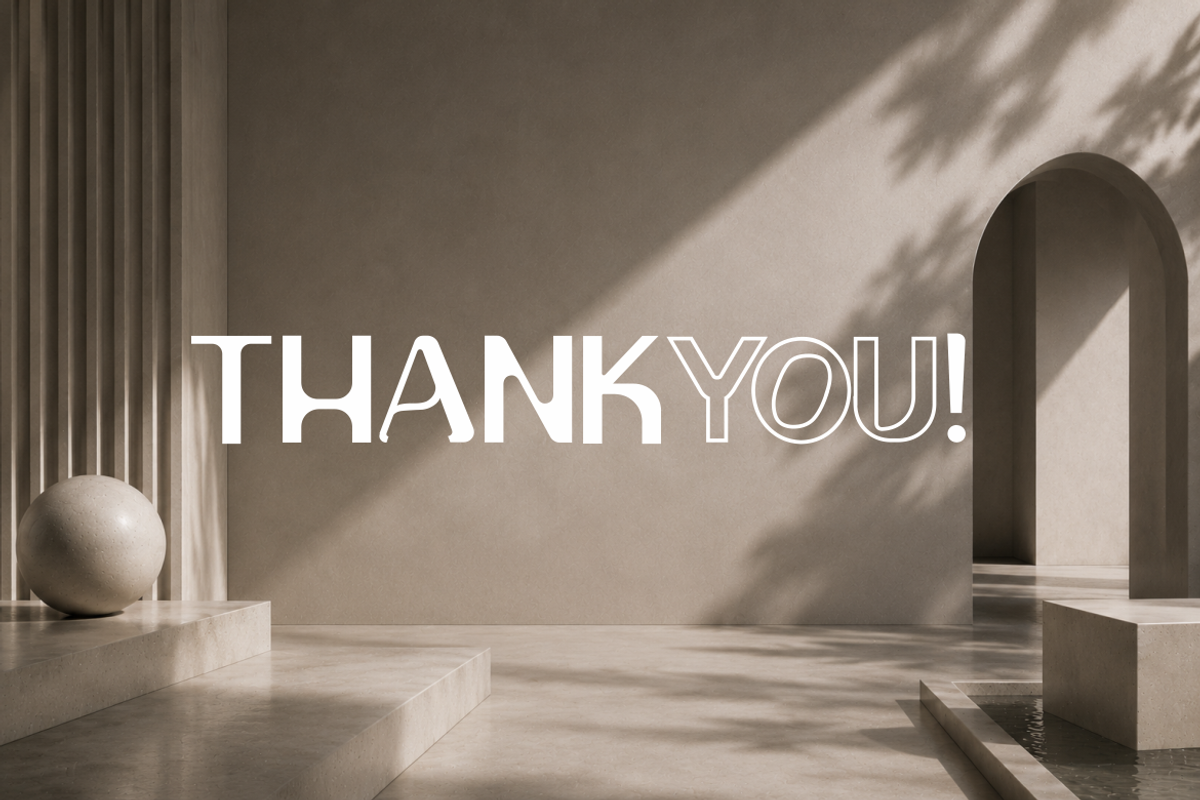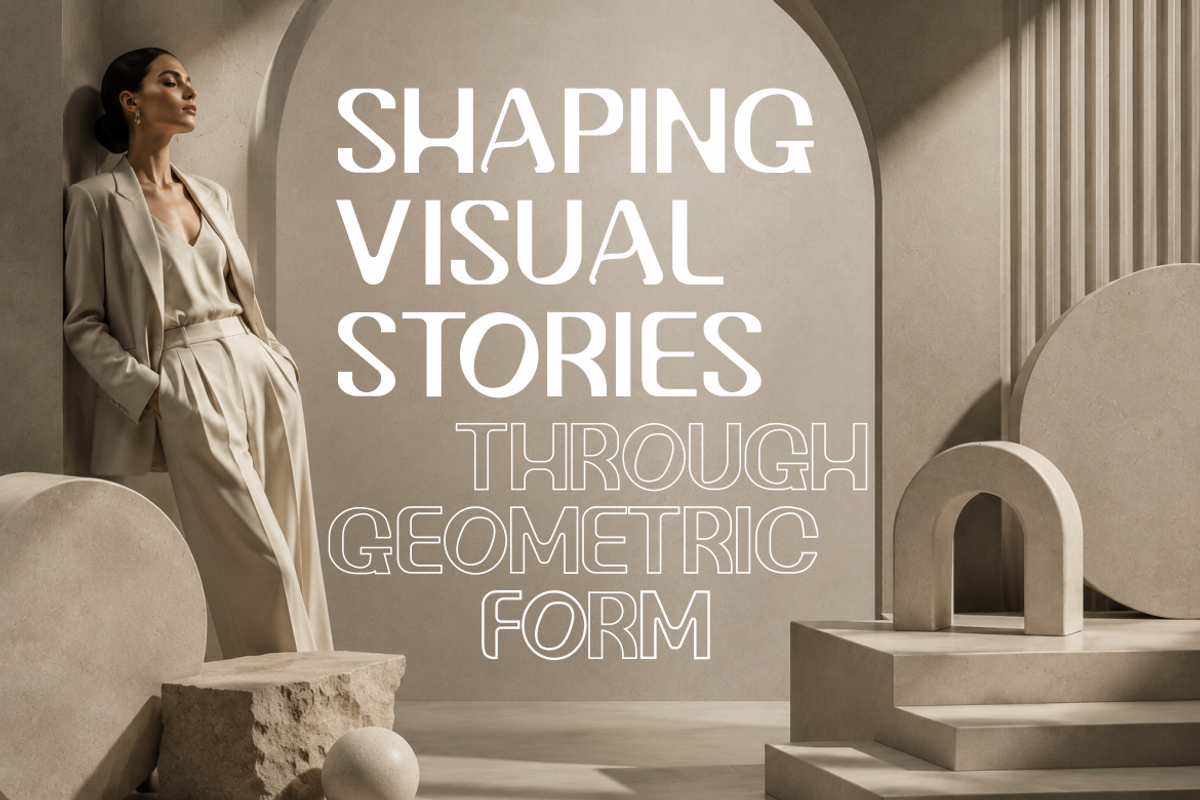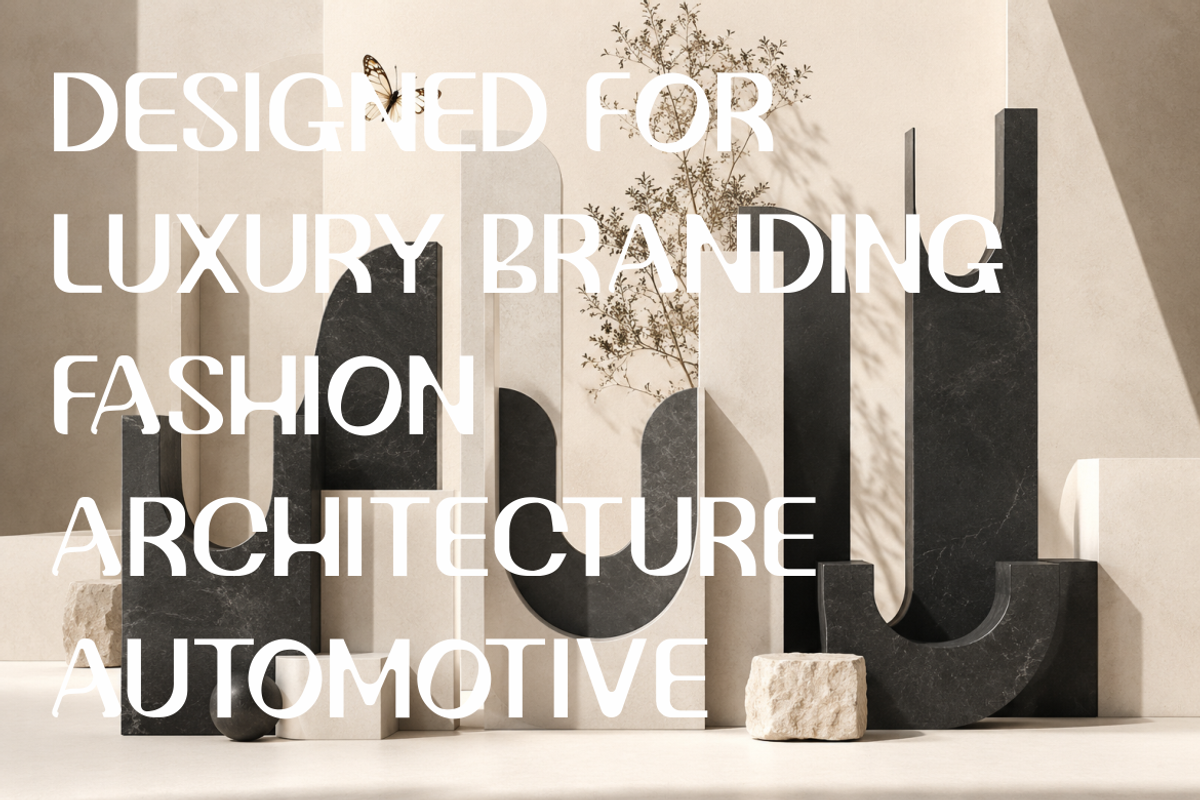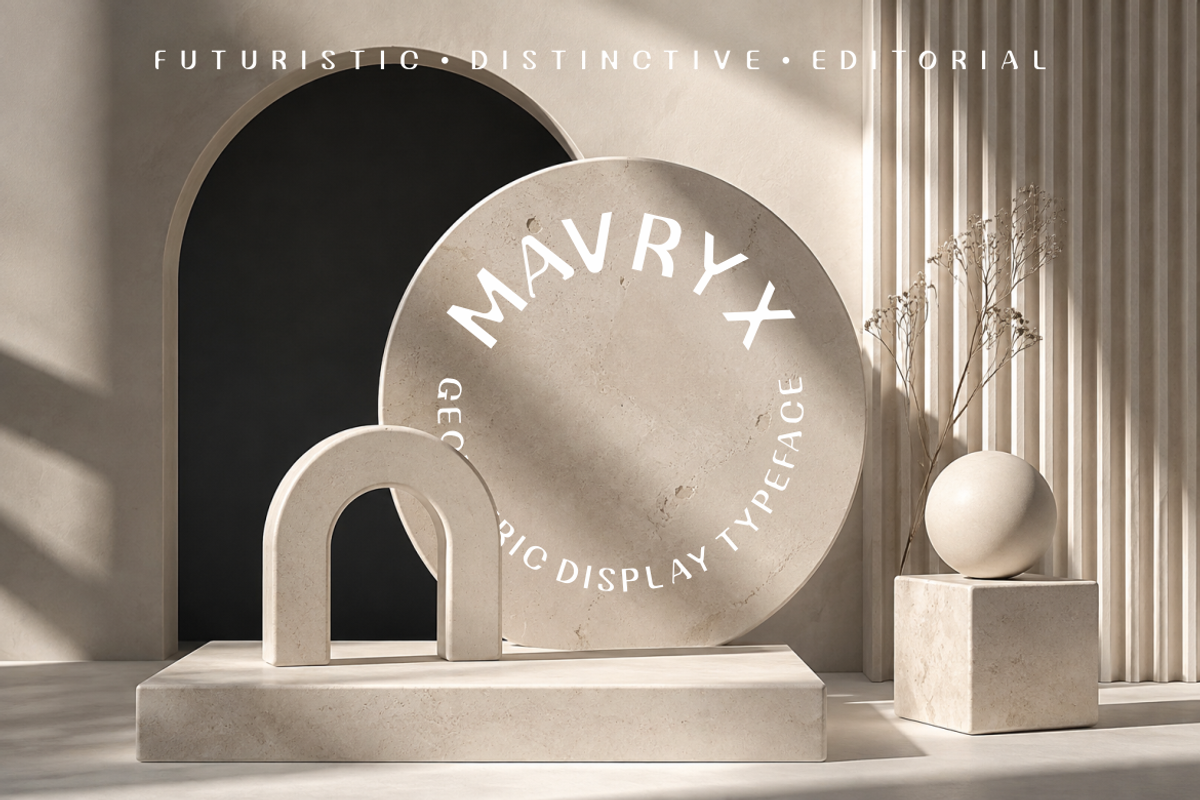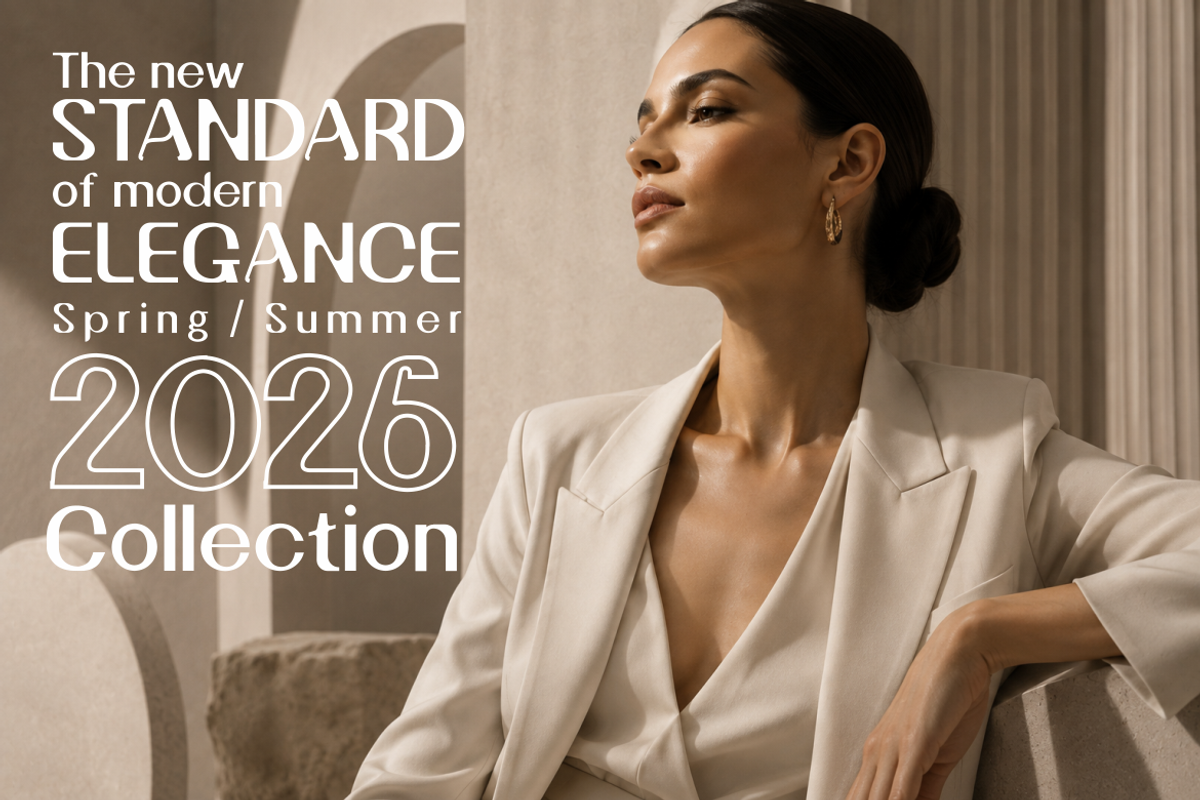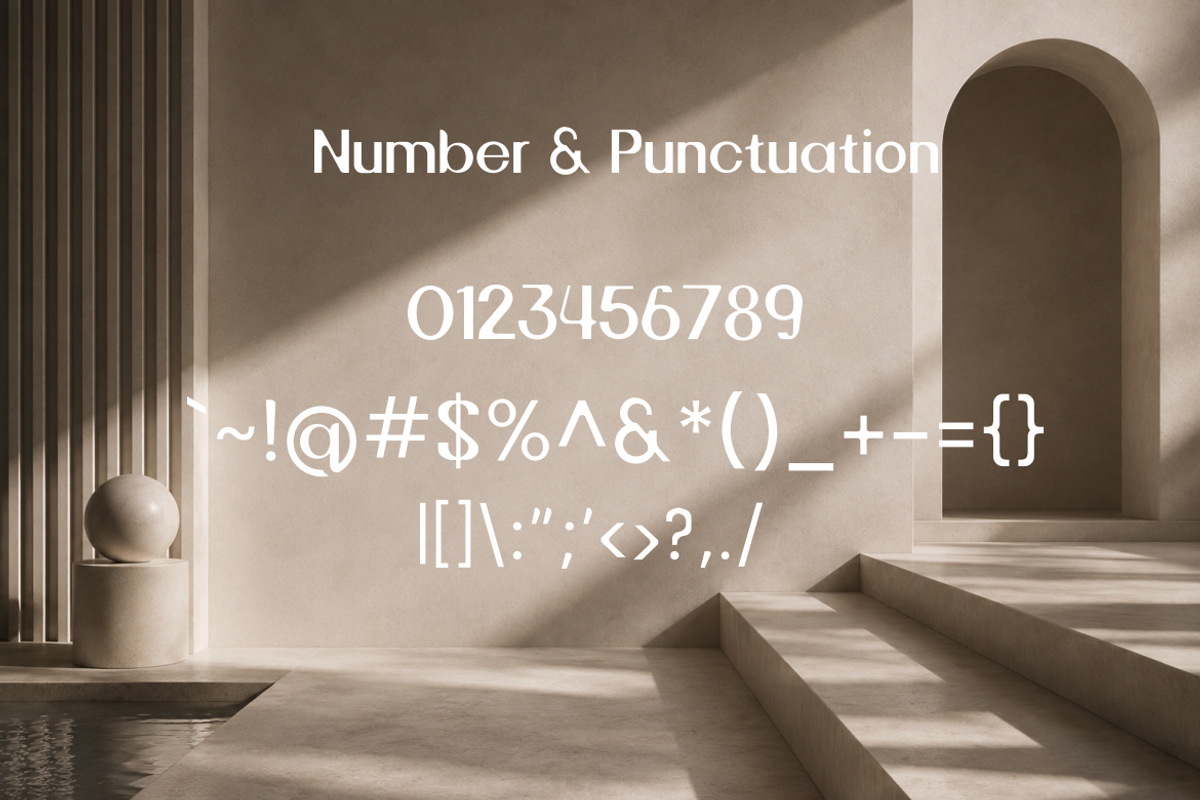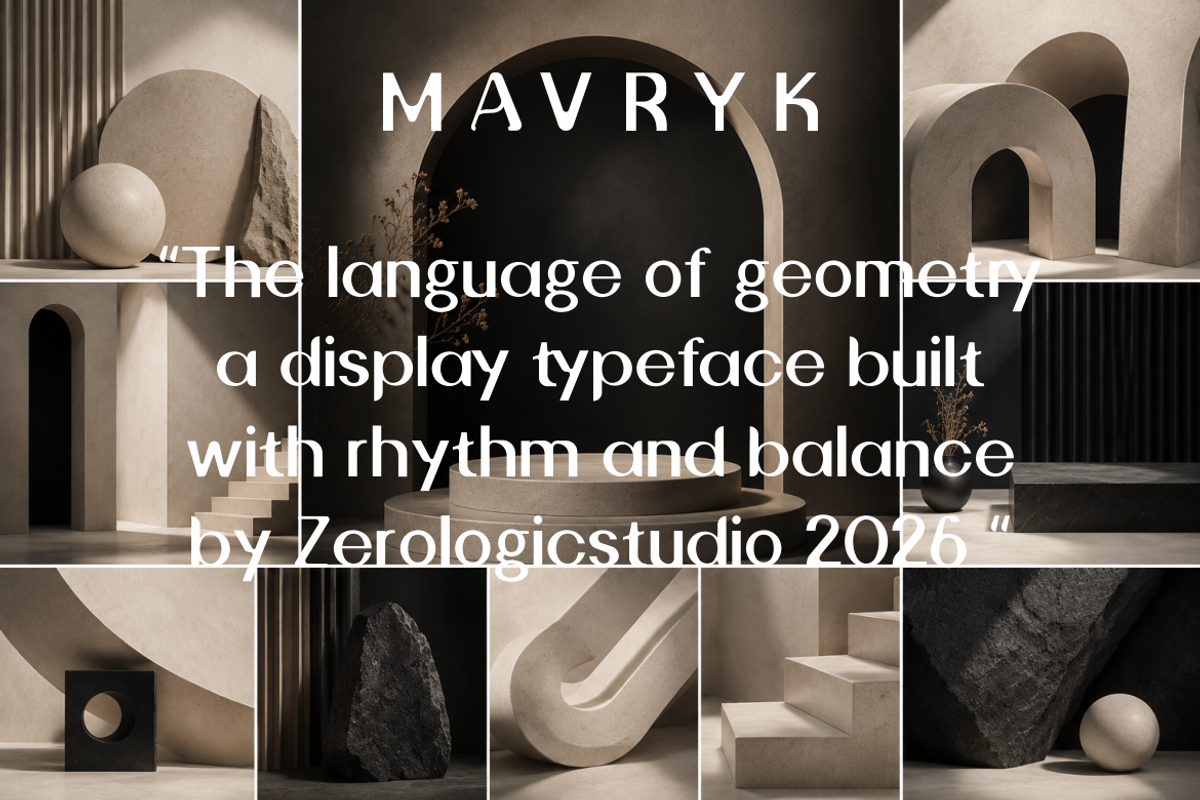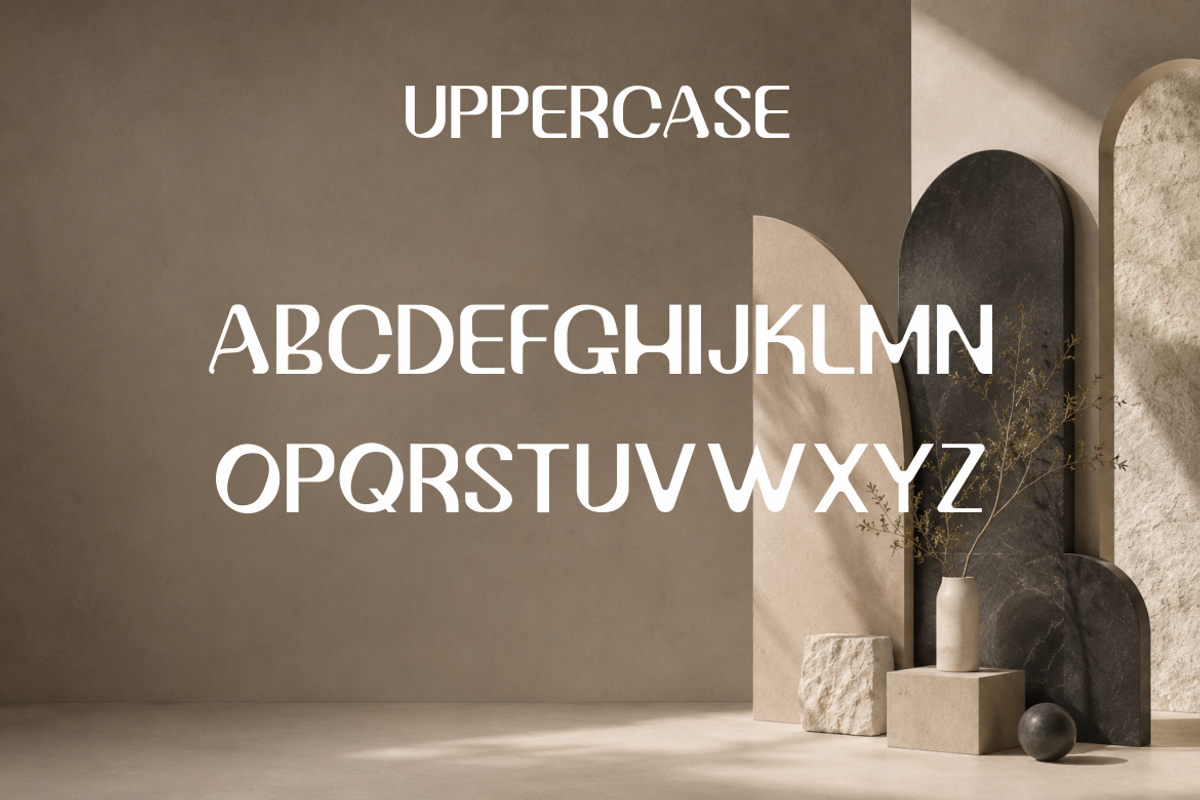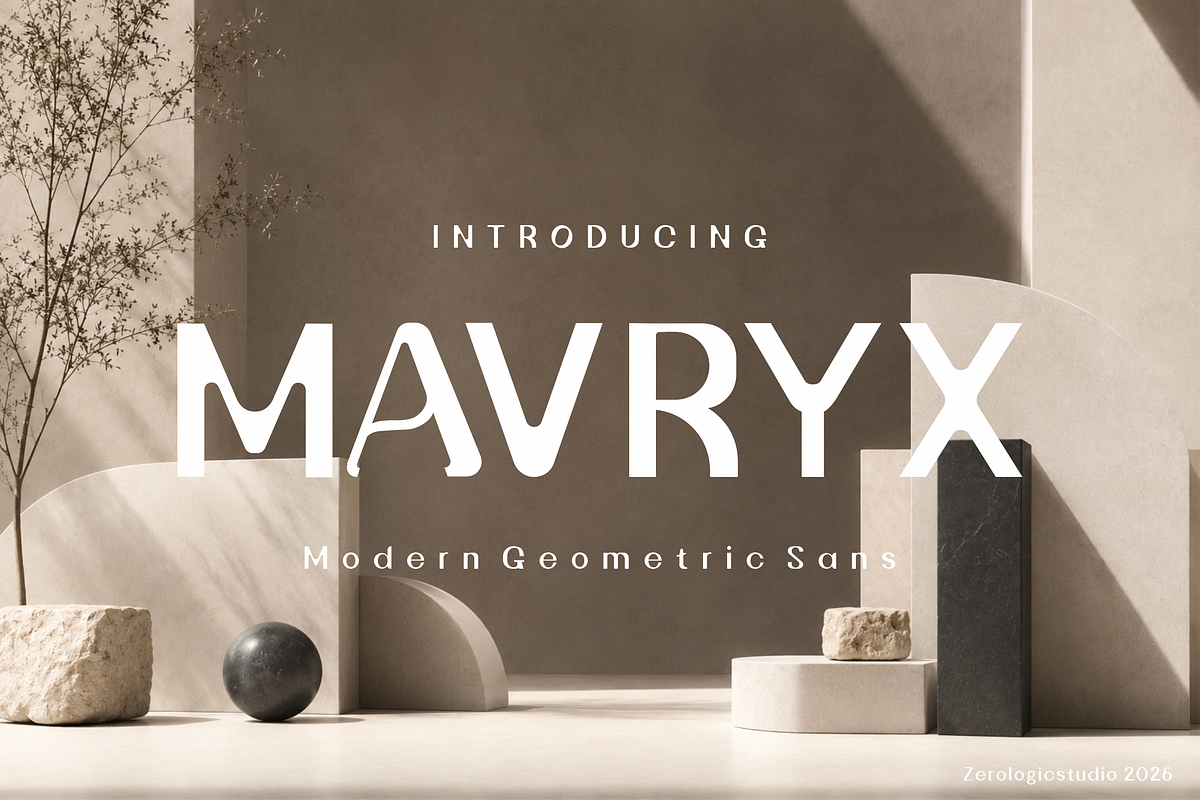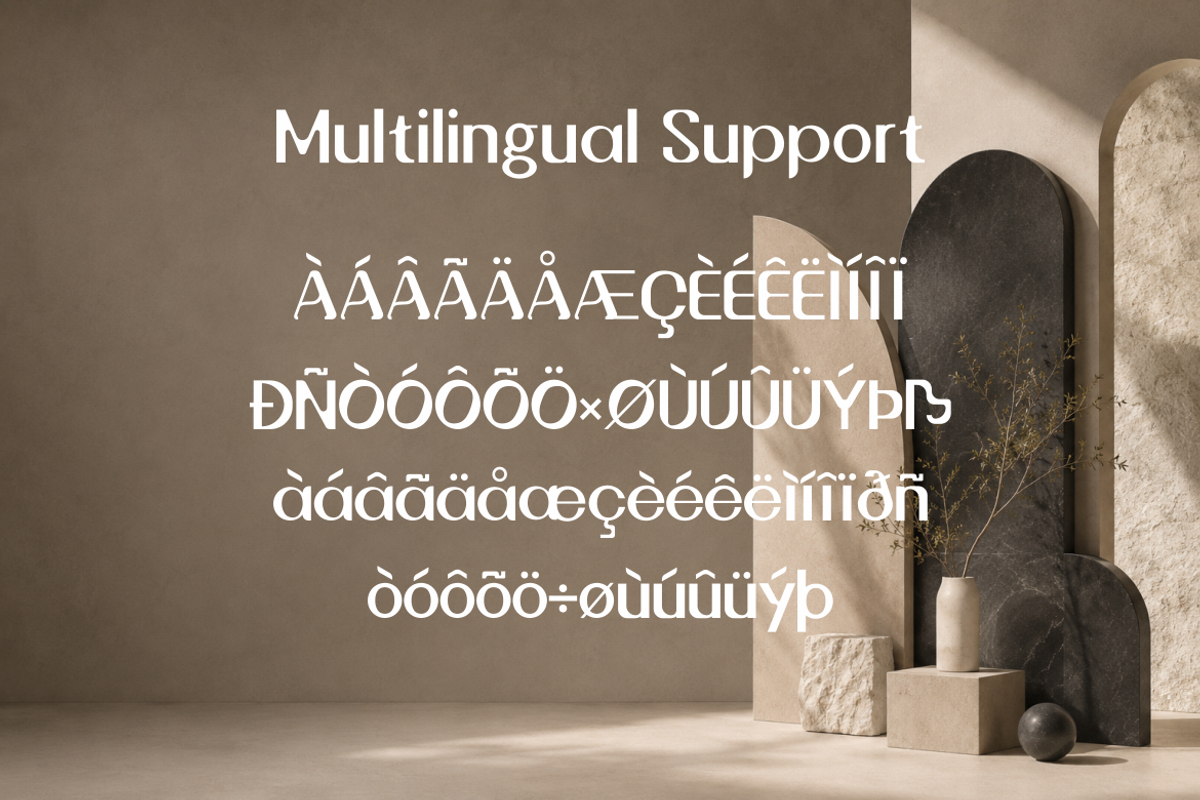
MAVRYK – Modern Geometric Display Typeface
MAVRYK is a contemporary uppercase display typeface crafted with a strong geometric foundation and a distinctive visual identity. Designed with clean structures, sharp angles, and refined proportions, MAVRYK brings a futuristic yet elegant character to every composition.
Inspired by modern architecture, luxury branding, and minimalist aesthetics, this typeface is perfect for creating impactful visual identities, fashion editorials, logos, posters, packaging, headlines, and premium digital experiences.
With its unique letterforms and sophisticated appearance, MAVRYK is designed for creatives who seek a bold, modern, and memorable typographic style.
• Luxury Branding
• Fashion Editorials
• Logo Design
• Architecture & Interior Design
• Posters & Headlines
• Packaging
• Magazine Layouts
• Creative Campaigns